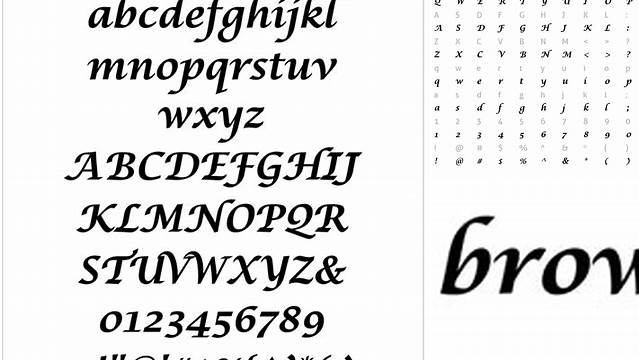
Lucida Calligraphy Bold Font: Free Options & Alternatives
Are you looking for lucida calligraphy bold font free options? Well, you've come to the right place! In this comprehensive guide, we'll dive deep into the world of Lucida Calligraphy Bold, exploring its history, characteristics, uses, and where to find it (or similar fonts) without breaking the bank. Finding the perfect font can be a game-changer for any design project, adding that touch of elegance and sophistication that sets your work apart. Whether you're designing wedding invitations, crafting logos, or simply looking to add flair to your personal documents, understanding the nuances of a font like Lucida Calligraphy Bold is essential. So, let's get started and unravel the beauty and versatility of this timeless typeface.
What is Lucida Calligraphy Bold?
Lucida Calligraphy Bold is a script typeface designed by Kris Holmes and Charles Bigelow in 1991 as part of the Lucida family. It's known for its flowing, elegant strokes that mimic traditional calligraphy. The “Bold” designation adds weight and emphasis to the letterforms, making it stand out even more. This font exudes a sense of grace and sophistication, making it a popular choice for projects that require a touch of class. The beauty of Lucida Calligraphy Bold lies in its ability to blend readability with aesthetic appeal. The strokes are carefully crafted to ensure that each letter is distinct, yet harmoniously connected to the others. This makes it suitable for both display purposes, such as headlines and titles, as well as shorter blocks of text where you want to create a refined impression. The font's design incorporates subtle variations in stroke thickness, adding a human touch that is often missing in more geometric or rigid typefaces. Moreover, the bold variant enhances its presence, making it more noticeable and impactful, especially in designs where it needs to stand out against a background or alongside other design elements. Its versatility allows it to be used in a variety of contexts, from formal invitations to branding materials, making it a valuable asset in any designer's toolkit. The flowing curves and elegant loops of Lucida Calligraphy Bold evoke a sense of tradition and artistry, reminiscent of hand-lettered calligraphy. This makes it particularly well-suited for projects that aim to convey a sense of history, craftsmanship, or personalized attention. Whether you are designing a logo for a luxury brand, creating signage for a boutique, or simply adding a special touch to a personal project, Lucida Calligraphy Bold can help you achieve a look that is both sophisticated and inviting. The carefully balanced weight of the bold version ensures that the font remains legible even at smaller sizes, while its distinctive character adds personality and charm to any design. In essence, Lucida Calligraphy Bold is more than just a font; it is a statement of elegance and refinement.
Key Characteristics of Lucida Calligraphy Bold
Let's break down the key characteristics that make Lucida Calligraphy Bold so recognizable and beloved. Its flowing script, heavy strokes (due to the 'Bold' weight), elegant loops and swashes, and high readability are all defining features. These characteristics combine to make the font a standout choice for various design applications. The flowing script gives it a natural, handwritten feel, which is perfect for adding a personal touch to your projects. Unlike more rigid or geometric fonts, Lucida Calligraphy Bold mimics the fluid movements of a calligrapher's pen, creating a sense of artistry and craftsmanship. The heavy strokes, thanks to the bold weight, ensure that the font stands out and is easily readable, even at smaller sizes or against complex backgrounds. This makes it a practical choice for both headlines and body text, where legibility is crucial. The elegant loops and swashes are another defining feature, adding a touch of sophistication and flair to the typeface. These decorative elements enhance the overall aesthetic appeal, making it ideal for projects that require a sense of luxury or refinement. However, it's important to use these features judiciously, as too many swashes can detract from readability. Despite its ornate appearance, Lucida Calligraphy Bold maintains high readability, which is essential for any font used in text-heavy applications. The letterforms are carefully designed to ensure that they are distinct and easily recognizable, even when viewed at a distance or in less-than-ideal conditions. This makes it a versatile choice for a wide range of design projects, from invitations and announcements to logos and branding materials. Overall, the combination of these key characteristics makes Lucida Calligraphy Bold a unique and versatile typeface that can add a touch of elegance and sophistication to any design project. Its flowing script, heavy strokes, elegant loops and swashes, and high readability make it a standout choice for those looking to create a lasting impression. Whether you are designing a wedding invitation, a corporate logo, or a personal greeting card, Lucida Calligraphy Bold can help you achieve a look that is both timeless and contemporary. Its classic appeal and modern sensibilities make it a valuable addition to any designer's toolkit.
Where to Use Lucida Calligraphy Bold
Where can you actually use lucida calligraphy bold font? Think wedding invitations, greeting cards, certificates, logos (especially for businesses aiming for an elegant vibe), and even headings in documents. It’s versatile! The font's inherent elegance makes it an ideal choice for wedding invitations, where it can add a touch of romance and sophistication. Its flowing script and decorative swashes create a sense of occasion, while its readability ensures that guests can easily read the details of the event. Similarly, Lucida Calligraphy Bold is well-suited for greeting cards, where it can convey a sense of warmth and personalization. Whether you are sending a birthday card, a thank-you note, or a holiday greeting, this font can help you express your sentiments with style and grace. Certificates and awards also benefit from the use of Lucida Calligraphy Bold, as it adds a sense of prestige and formality. Its elegant appearance makes it suitable for recognizing achievements and milestones, while its readability ensures that the recipient's name and the details of the award are clearly visible. In the realm of branding, Lucida Calligraphy Bold can be particularly effective for businesses that want to project an image of elegance and sophistication. It's often used in logos and marketing materials for luxury brands, boutiques, and high-end service providers. The font's flowing script and decorative elements can help create a memorable and distinctive brand identity, while its readability ensures that the brand's message is clearly communicated. Even in more mundane applications, such as headings in documents and presentations, Lucida Calligraphy Bold can add a touch of flair and personality. Its elegant appearance can help break up the monotony of plain text and make your content more engaging and visually appealing. However, it's important to use this font judiciously, as too much calligraphy can become overwhelming and detract from readability. Overall, the versatility of Lucida Calligraphy Bold makes it a valuable asset in a wide range of design projects. Whether you are creating invitations, logos, certificates, or simply adding a touch of elegance to your documents, this font can help you achieve a look that is both sophisticated and memorable. Its classic appeal and modern sensibilities make it a timeless choice for designers and creatives alike.
Similar Fonts to Lucida Calligraphy Bold
If you can't find lucida calligraphy bold font free, don't worry! Several fonts offer a similar aesthetic. Great Vibes, Allura, ্যোselyn, and ন্দndigo Regular are excellent alternatives. These fonts capture the essence of elegant calligraphy with their flowing lines and decorative flourishes. Great Vibes is a particularly popular choice, known for its graceful curves and sophisticated style. It's a versatile font that can be used in a wide range of design projects, from wedding invitations to logos and branding materials. Allura is another excellent alternative, offering a more modern take on traditional calligraphy. Its clean lines and elegant letterforms make it a great choice for projects that require a touch of sophistication without being overly ornate. ्योselyn provides a unique and stylish option with its distinctive letterforms and flowing script. It's a great choice for projects that need a touch of personality and flair, while still maintaining a sense of elegance. ন্দndigo Regular offers a more understated alternative, with its simple yet elegant design. It's a versatile font that can be used in a wide range of applications, from body text to headings and titles. When choosing a font alternative, it's important to consider the overall aesthetic of your project and the message you want to convey. Think about the font's readability, its compatibility with other design elements, and its licensing restrictions. It's also a good idea to experiment with different fonts and compare their appearance side-by-side to see which one works best for your project. In addition to the fonts listed above, there are many other calligraphy-style fonts available online. Websites like Google Fonts, DaFont, and Font Squirrel offer a wide selection of free and affordable options, so you're sure to find one that meets your needs. Just remember to check the licensing restrictions before using a font in a commercial project, and be sure to give credit to the font designer if required. Ultimately, the best way to find a font alternative is to experiment and explore. Try out different fonts, compare their appearance, and see which one best captures the essence of Lucida Calligraphy Bold while still meeting your specific needs and preferences. With a little bit of research and experimentation, you can find the perfect font to elevate your designs and make a lasting impression.
Tips for Using Calligraphy Fonts Effectively
Using calligraphy fonts like Lucida Calligraphy Bold (or its alternatives) effectively requires a bit of finesse. Don't overuse it! Calligraphy fonts are best used sparingly, for headings, titles, or short phrases. Avoid using them for large blocks of text, as they can become difficult to read. Pair it wisely. Choose a simple, clean font for body text to complement the elegance of the calligraphy font. Consider contrast. Use calligraphy fonts to create a visual hierarchy, drawing attention to important elements on the page. Pay attention to spacing. Adjust the letter spacing (tracking) and line spacing (leading) to improve readability and visual appeal. Experiment with color. Use color to highlight the calligraphy font and make it stand out from the rest of the design. When using calligraphy fonts, it's important to keep in mind that they are primarily decorative. Their main purpose is to add a touch of elegance and sophistication to your designs, rather than to convey large amounts of information. This means that you should use them sparingly and in strategic locations, such as headings, titles, and short phrases. Avoid using calligraphy fonts for large blocks of text, as they can become difficult to read and detract from the overall design. When pairing calligraphy fonts with other typefaces, it's important to choose a font that complements the elegance of the calligraphy font without overpowering it. A simple, clean sans-serif font is often a good choice, as it provides a contrast to the ornate style of the calligraphy font. You can also experiment with different serif fonts, but be sure to choose one that is not too decorative or distracting. Creating contrast is another key element of using calligraphy fonts effectively. By using calligraphy fonts to draw attention to important elements on the page, you can create a visual hierarchy that guides the reader's eye and helps them understand the main points of your message. For example, you might use a calligraphy font for the headline of a document or the title of a presentation, while using a simpler font for the body text. Paying attention to spacing is also important when using calligraphy fonts. Because these fonts often have more complex letterforms than other typefaces, it's important to adjust the letter spacing (tracking) and line spacing (leading) to improve readability and visual appeal. Experiment with different spacing settings until you find a combination that works well for your specific design. Finally, consider using color to highlight the calligraphy font and make it stand out from the rest of the design. A bold, contrasting color can help draw attention to the calligraphy font and make it more visually appealing. However, be sure to use color sparingly, as too much color can be overwhelming and detract from the overall design.
While finding an exact lucida calligraphy bold font free version might be tricky, understanding its characteristics and exploring similar fonts opens up a world of possibilities. With the tips and resources provided, you're well-equipped to find the perfect elegant font for your next project! Remember, the key is to balance aesthetics with readability and ensure the font aligns with the overall message you want to convey. So go forth and create beautiful designs! Experiment with different fonts, try out new color combinations, and don't be afraid to push the boundaries of your creativity. The world of typography is vast and ever-evolving, so there's always something new to discover. Whether you're designing a wedding invitation, a corporate logo, or a personal greeting card, the right font can make all the difference. By understanding the nuances of Lucida Calligraphy Bold and its alternatives, you can create designs that are both elegant and effective. So, take the time to explore different font options, experiment with different design techniques, and always strive to create work that is both visually appealing and meaningful. With a little bit of effort and creativity, you can transform your designs from ordinary to extraordinary, and leave a lasting impression on your audience. And who knows, you might even discover a new favorite font along the way! The journey of design is a continuous process of learning, experimenting, and refining, so embrace the challenge and enjoy the ride. With the right tools and techniques, you can create designs that are not only beautiful but also impactful and memorable. So, go ahead and unleash your creativity, and let your imagination soar. The possibilities are endless!